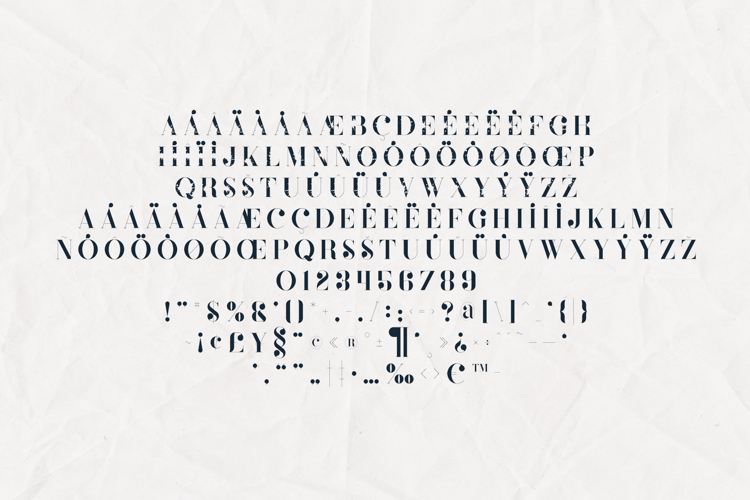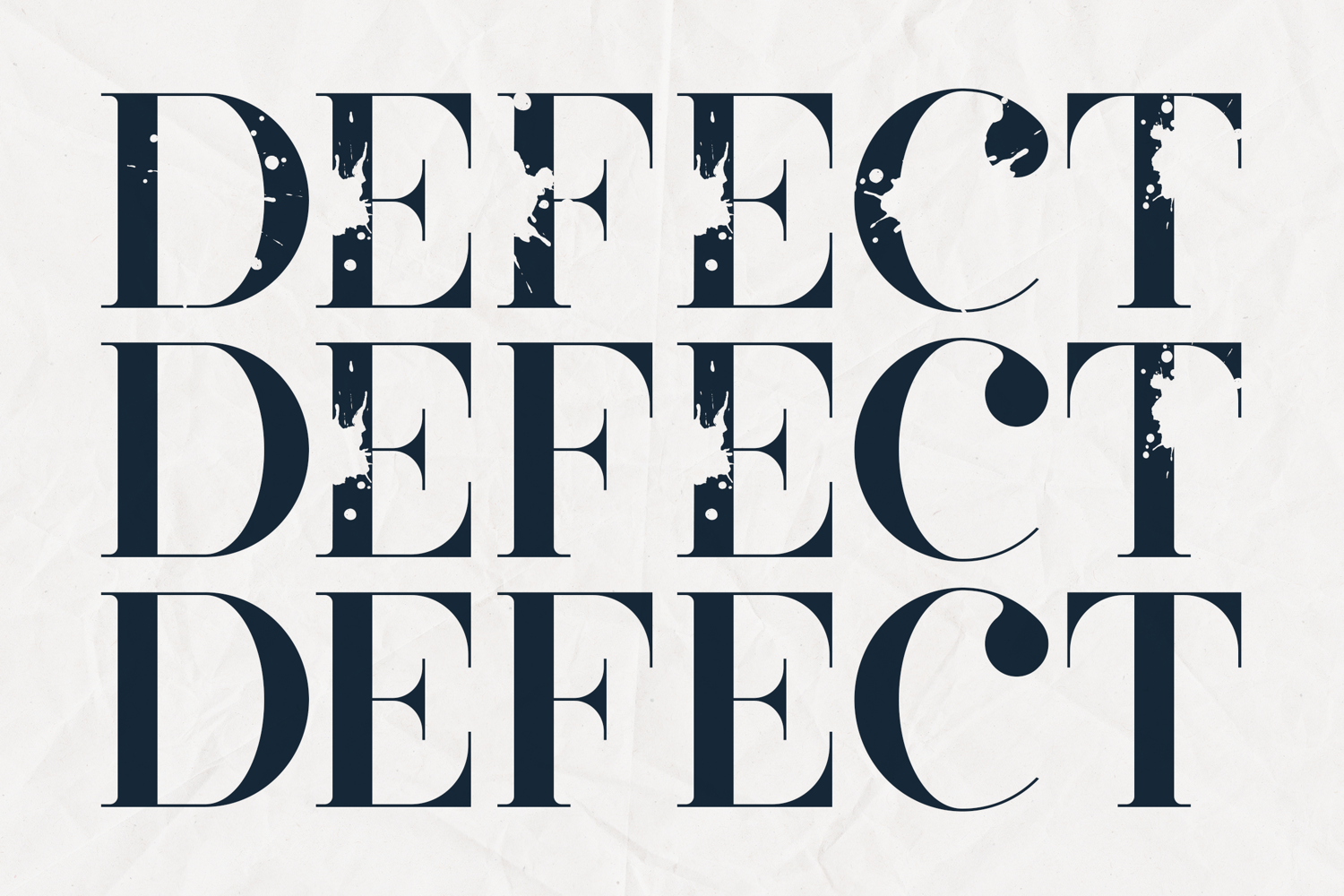
Defect Distressed Vintage Serif Font
Defect is a bold distressed serif typeface that blends classic typography with expressive grunge texture. Designed to mimic worn ink, print imperfections, and artistic splashes, the font delivers a raw and authentic character that instantly adds personality to any design.
The strong serif structure keeps the typeface elegant and readable, while the textured details introduce an organic and handcrafted aesthetic. This balance makes Defect ideal for designers who want to create vintage-inspired visuals with a modern edge.
Defect works beautifully in large display settings such as posters, editorial headlines, branding, album covers, apparel graphics, and packaging design. The distressed elements give every letter a unique appearance, creating dynamic and visually engaging typography.
The typeface includes uppercase and lowercase letters, numbers, punctuation, and extended multilingual characters, allowing it to be used across a wide range of international projects.
Whether you’re creating bold branding, vintage posters, or expressive editorial layouts, Defect brings powerful character and artistic texture to your typography.
Perfect ForVintage branding
Poster design
Editorial layouts
Album artwork
Streetwear graphics
Creative typography
Packaging design
Logo design